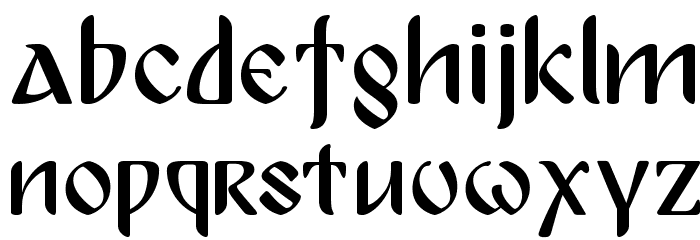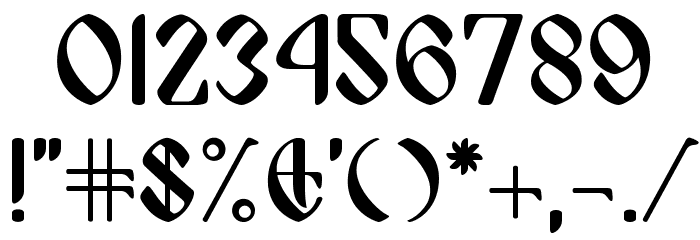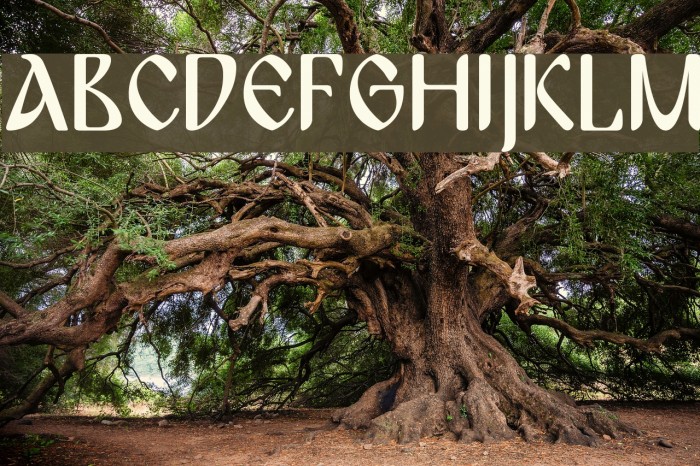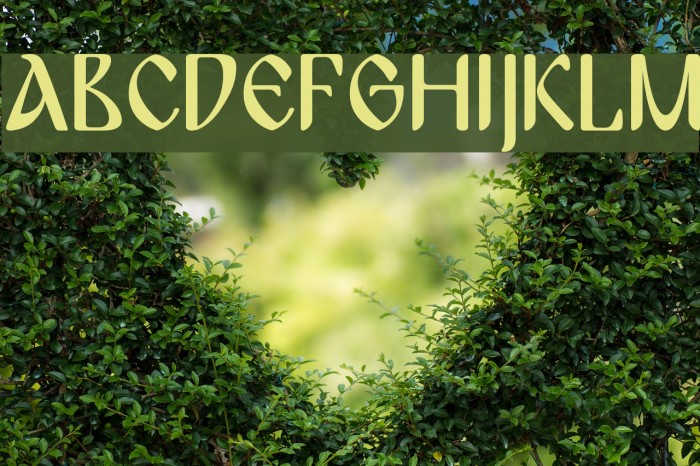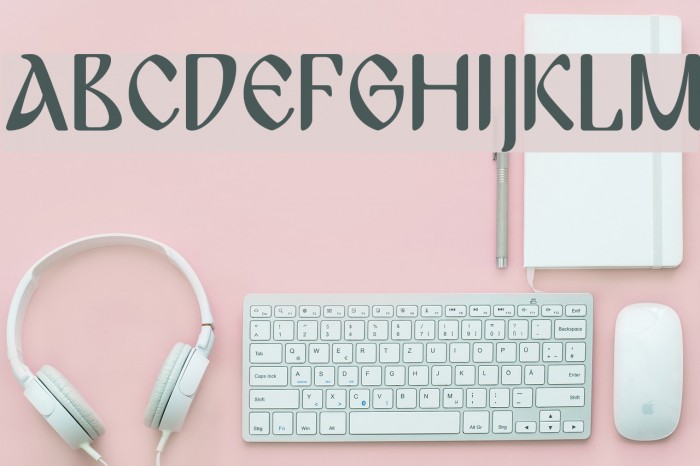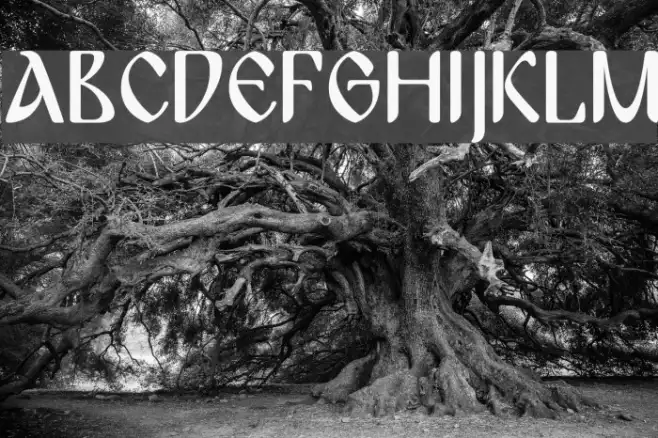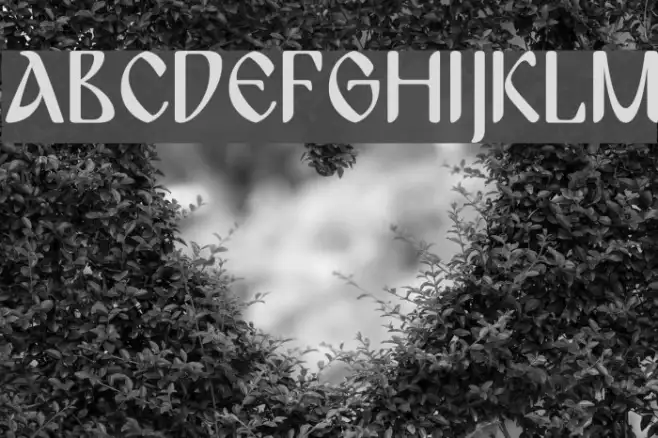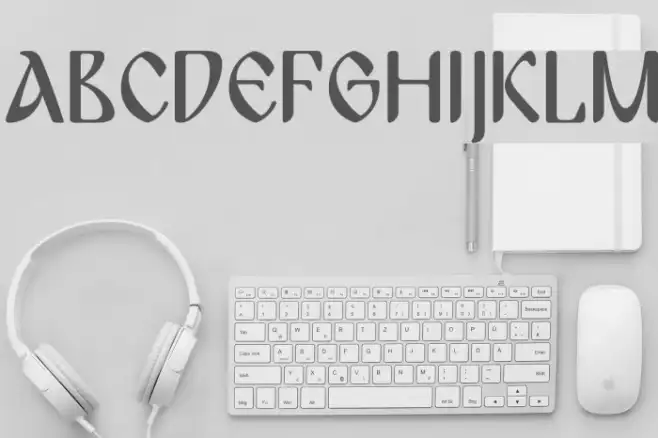
BulgariaModernaPro Font
This font features a unique blend of modern and traditional elements, characterized by its bold and expressive strokes. The uppercase letters exhibit a distinct angularity, while the lowercase letters maintain a more fluid and rounded form. The numerals are bold and easily distinguishable, complementing the overall style. Special characters are creatively designed, adding a decorative touch. The font's high contrast between thick and thin strokes enhances its visual impact, making it suitable for attention-grabbing designs.
A bold, modern font with high contrast and expressive strokes.
- Proposed Projects: Ideal for branding, poster design, and headlines where a strong visual presence is required.